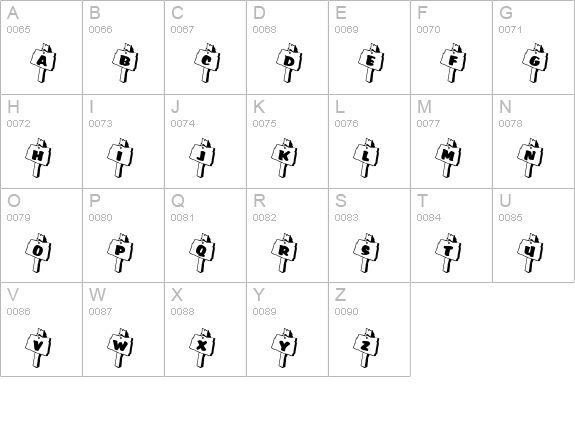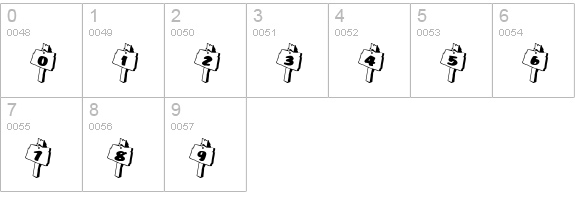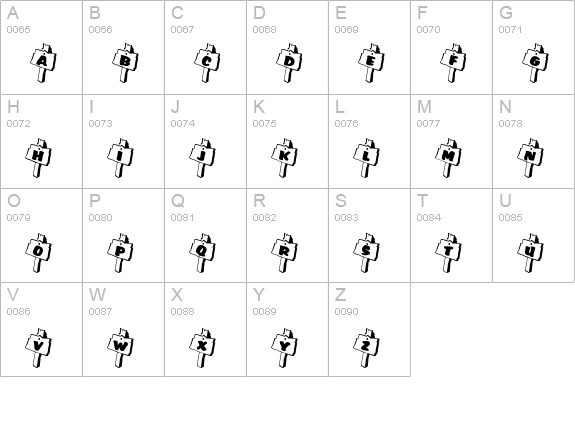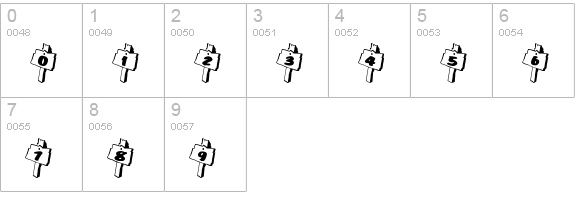
RMSignpost Font Details
RMSignpost font is a versatile and modern typeface designed to make a statement in your design projects. With its clean lines and bold presence, this font is perfect for headlines, branding, and any creative project that requires a touch of sophistication. RMSignpost is available in a variety of weights and styles, allowing you to customize your text to suit your needs. The best part? RMSignpost is completely free to download at FontsMarket.com, making it accessible to all designers looking to add a unique and stylish touch to their work. Don't miss out on this opportunity to elevate your designs with the elegance and flair of RMSignpost font. Download it today and start creating stunning visuals that stand out from the crowd.